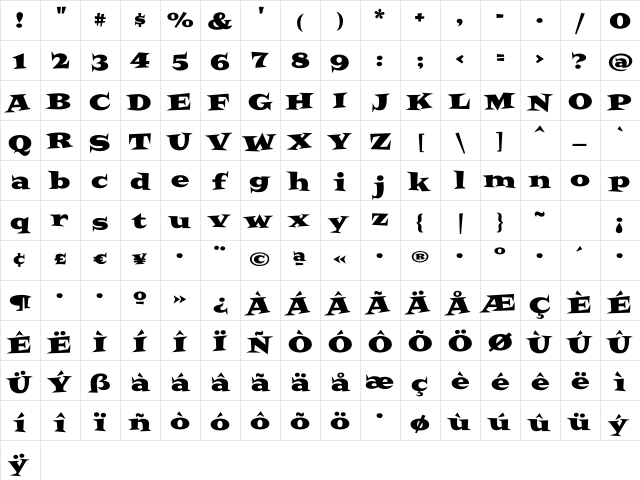
Latino Samba Free Font
Latino Samba
Style: Samba
Design Context for Latino
Latino is a composed and adaptable typeface that performs quietly and consistently across a wide range of design contexts.